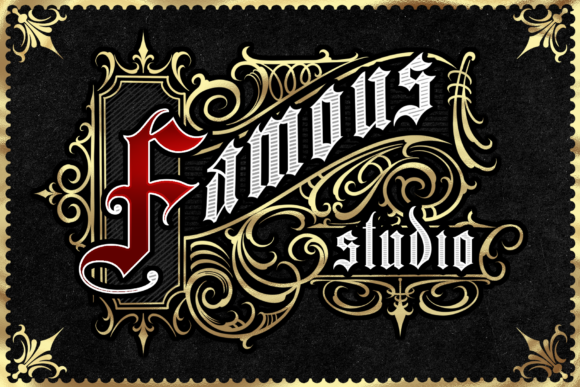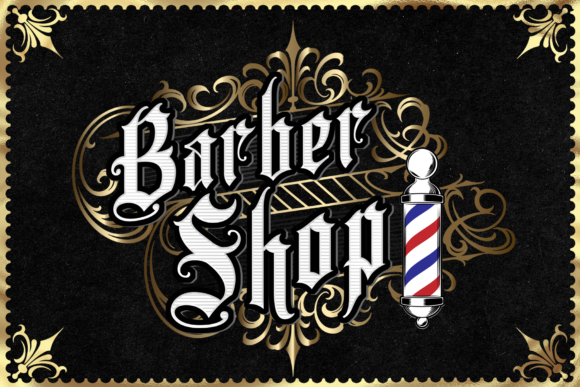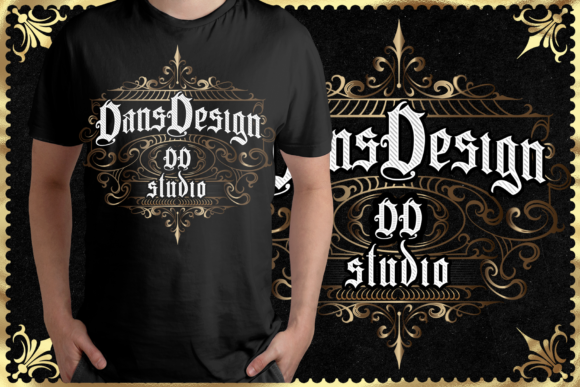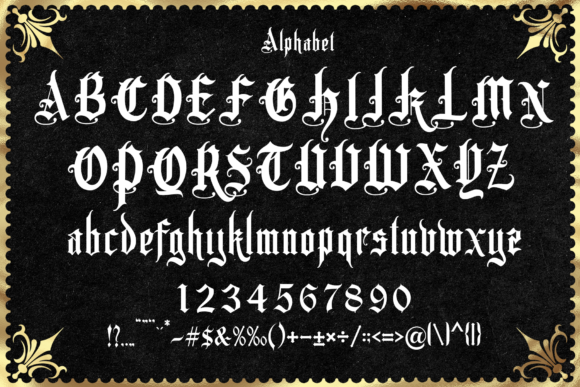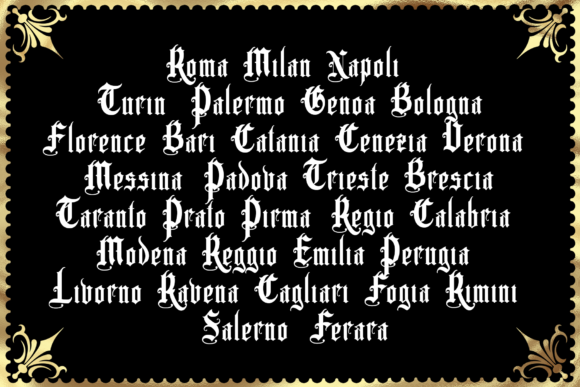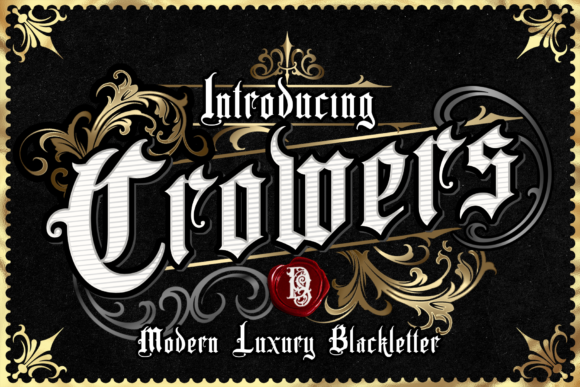
Crowers Font: A Modern Blackletter Masterpiece
In the world of typography, fonts play a crucial role in conveying messages, expressing emotions, and creating visual identities. For designers, crafters, and creative enthusiasts, finding the perfect font can be a daunting task. However, if you’re looking for a modern blackletter font that exudes style and sophistication, look no further than Crowers Font. In this article, we’ll dive into the world of Crowers, exploring its unique features, design inspiration, and uses in creative projects.
The Birth of Crowers Font
Crowers Font is a modern blackletter font that has been carefully crafted with references to various letters combined and designed with style. The font’s creator has drawn inspiration from traditional blackletter typography, while infusing it with a fresh and contemporary twist. The result is a font that is both elegant and bold, perfect for adding a touch of sophistication to any creative project.
Design Features of Crowers Font
Crowers Font boasts a range of design features that set it apart from other blackletter fonts. Some of its notable features include:
- Unique Letterforms: Crowers Font features unique letterforms that are both intricate and stylish. Each letter has been carefully designed to work seamlessly with others, creating a cohesive and visually appealing text.
- Modern Twist: Unlike traditional blackletter fonts, Crowers Font has a modern twist that makes it perfect for contemporary design projects. Its clean lines, elegant curves, and subtle flair give it a fresh and sophisticated feel.
- High Versatility: Crowers Font is highly versatile, making it suitable for a wide range of creative projects, from branding and advertising to packaging and digital media.
Uses of Crowers Font
Crowers Font is an incredibly versatile font that can be used in a variety of creative projects. Here are some ideas to get you started:
- Branding and Logo Design: Use Crowers Font to create a bold and memorable logo that stands out from the crowd. Its unique letterforms and modern twist make it perfect for businesses looking to establish a strong visual identity.
- Advertising and Marketing: Crowers Font is ideal for advertising and marketing campaigns, particularly those that require a touch of elegance and sophistication. Use it to create eye-catching headlines, promotional materials, and social media graphics.
- Packaging Design: Add a touch of luxury to your packaging design with Crowers Font. Its bold and intricate letterforms make it perfect for product labels, packaging materials, and point-of-sale displays.
- Digital Media: Crowers Font can also be used in digital media, such as video titles, motion graphics, and website headers. Its high versatility makes it suitable for a wide range of digital applications.
Tips for Using Crowers Font
To get the most out of Crowers Font, here are some tips to keep in mind:
- Experiment with Font Sizes: Crowers Font looks great in a variety of font sizes, from large headlines to smaller body text. Experiment with different font sizes to find the perfect balance for your design.
- Pair it with Other Fonts: Crowers Font can be paired with other fonts to create a unique and visually appealing text. Try pairing it with a sans-serif font for a bold and modern look.
- Use it in Combination with Images: Crowers Font looks great in combination with images, particularly those with a vintage or distressed feel. Use it to add a touch of elegance and sophistication to your designs.
| Font Name | Crowers Font |
| Author | Dansdesign |
Crowers Font is a modern blackletter font that is sure to add a touch of style and sophistication to any creative project. Its unique letterforms, modern twist, and high versatility make it perfect for a wide range of design applications. Whether you’re a designer, crafter, or creative enthusiast, Crowers Font is a must-have font that will take your designs to the next level. So why wait? Add Crowers Font to your collection today and watch your creative projects come alive!